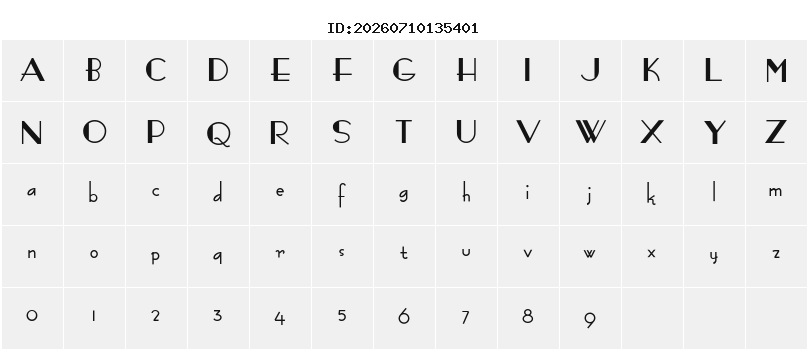
• Font Name: FashionVictim
• Full Font Name: FashionVictim
About FashionVictim.ttf
FashionVictim.ttf is a modern, elegant sans-serif font designed for ultimate readability and visual harmony. Perfect for branding, headlines, web design, and print materials.